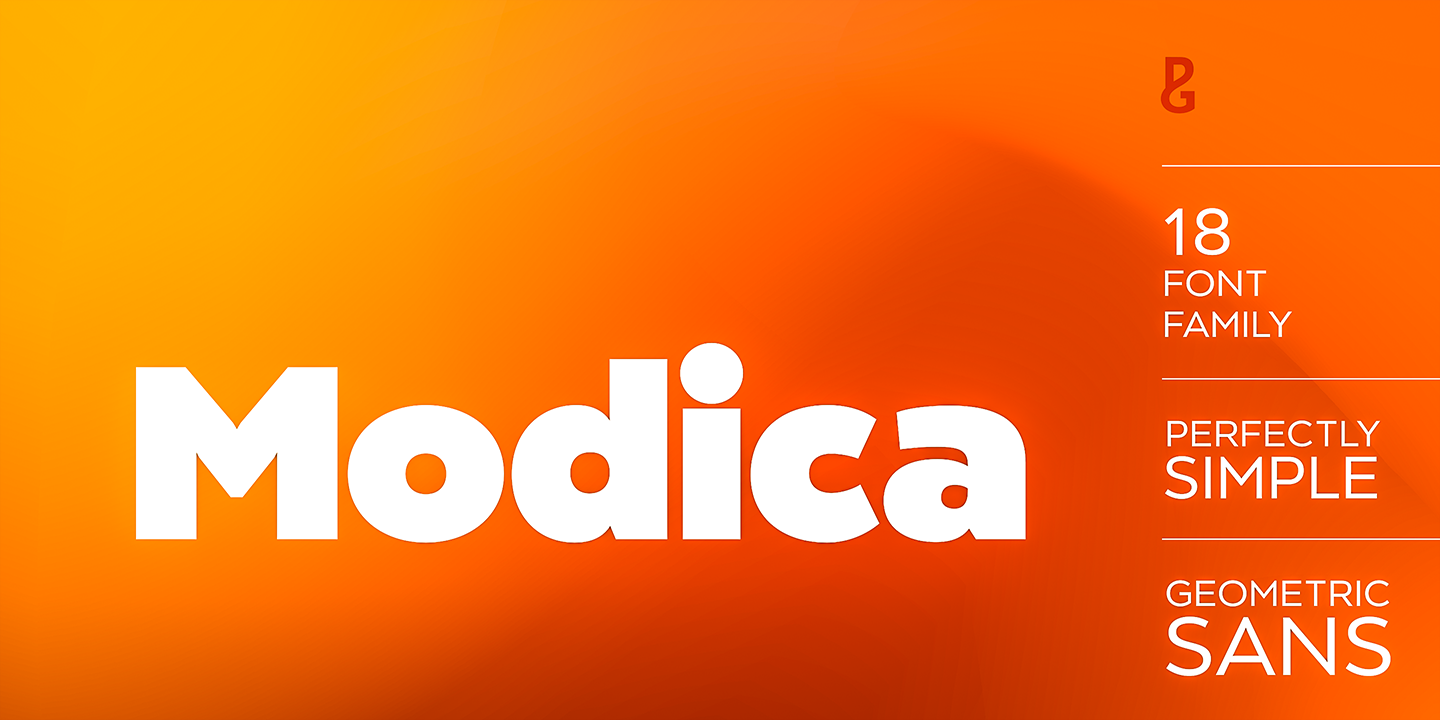
Discover the geometric perfection of Modica Font Free Download, a contemporary sans-serif family that brings Swiss precision to modern design projects. With its clean lines and balanced proportions, Modica delivers exceptional readability for both digital interfaces and print applications.
Why Modica Stands Out
1. Pure Geometric Clarity
Precise circular forms and consistent stroke weights
Subtle optical corrections for improved legibility
Neutral yet distinctive character
2. Universal Design Applications
Masterfully crafted for:
UI/UX design systems
Mobile app interfaces
Corporate identity programs
Data visualization
Minimalist packaging
3. Technical Excellence
8 weights from Thin to Black
Matching true italics
Extended Latin and Cyrillic support
Optimized for retina displays
Modica Font Free Download excels in:
Annual report design
Wayfinding systems
Academic publications
Web typography
Modica Font Free Download – Geometric precision meets contemporary warmth!
Key Advantages:
Maintains clarity from business cards to billboards
Perfect vertical rhythm in text blocks
Excellent for multilingual projects
Why It's Special:
Modica achieves the rare balance of strict geometric foundations with subtle humanist influences for approachable professionalism.
Perfect Pairing:
Combine with a transitional serif like Georgia for sophisticated editorial layouts.
Pro Insight:
The SemiBold weight works exceptionally well for financial dashboards, offering authority without sterility.
Includes tabular figures
Alternative currency symbols
Optimized for dark mode interfaces
Design Philosophy:
Developed for the digital age while respecting classic typographic principles – making it timeless yet contemporary.
Expert Recommendation:
Use in cool grayscale (80% black) for ultra-clean tech presentations that maintain warmth.
Technical Note:
The font's metrics create perfect vertical spacing in multi-line UI text.
This font may cause permanent dissatisfaction with lesser geometric sans-serifs. Use for designs demanding uncompromising quality!